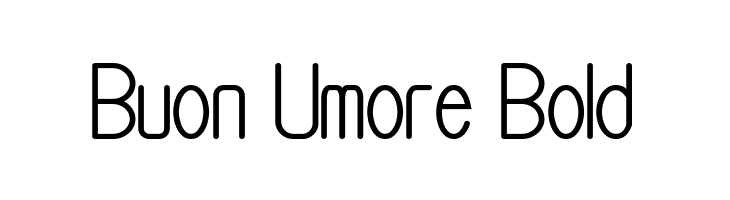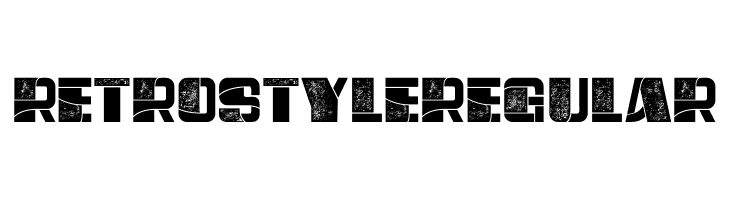
A bold, retro-inspired font with a distressed texture and geometric design.
A modern, elongated font with narrow letterforms and a sleek design.
A bold, playful font with rounded, bubbly characters and a retro-modern style.
A futuristic and angular font with sharp edges and geometric forms.
A bold, high-contrast font with sharp serifs and a dynamic style.
A playful, dynamic script font with a handwritten feel and smooth curves.
A geometric, modern font with tall, narrow letters and consistent line thickness.
A bold, distressed font with a charred, grunge-like appearance.
An ornate and decorative font with intricate flourishes, ideal for elegant designs.